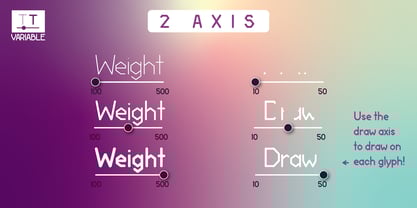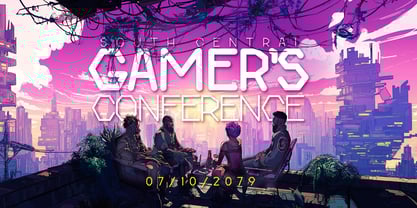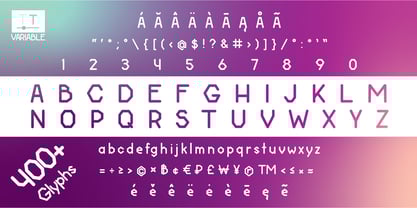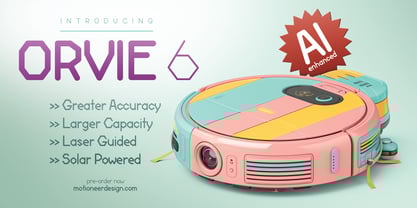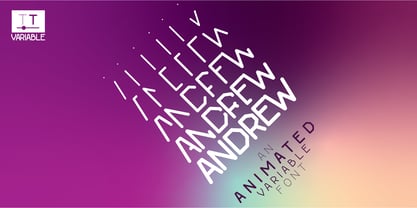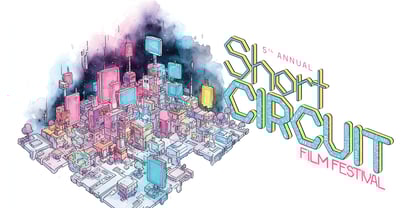
Andrew
Andrew is a futuristic, geometric sans built for digital design, motion graphics, and interactive typography. With over 400 variable weights, from thin to bold, Andrew offers extreme flexibility for responsive design systems.
Its defining feature is a custom DRAW axis — a unique variable axis that allows each glyph to animate from a single point into full letterform. This makes Andrew a powerful tool for motion design, kinetic typography, and interface animations.
Constructed with no curves and a sleek, rounded skeleton, Andrew is both utilitarian and high-tech — ideal for UI design, branding for tech and AI industries, and modern digital experiences.
Features:
• 400 weights via Weight axis (wght)
• Over 400 Glyphs
• Custom DRAW axis for animated draw-on effects
• Rounded sans-serif with no curves
• Full A–Z, numerals, punctuation, and symbols
• Multi-lingual support
• Optimized for web, video, and interactive environments